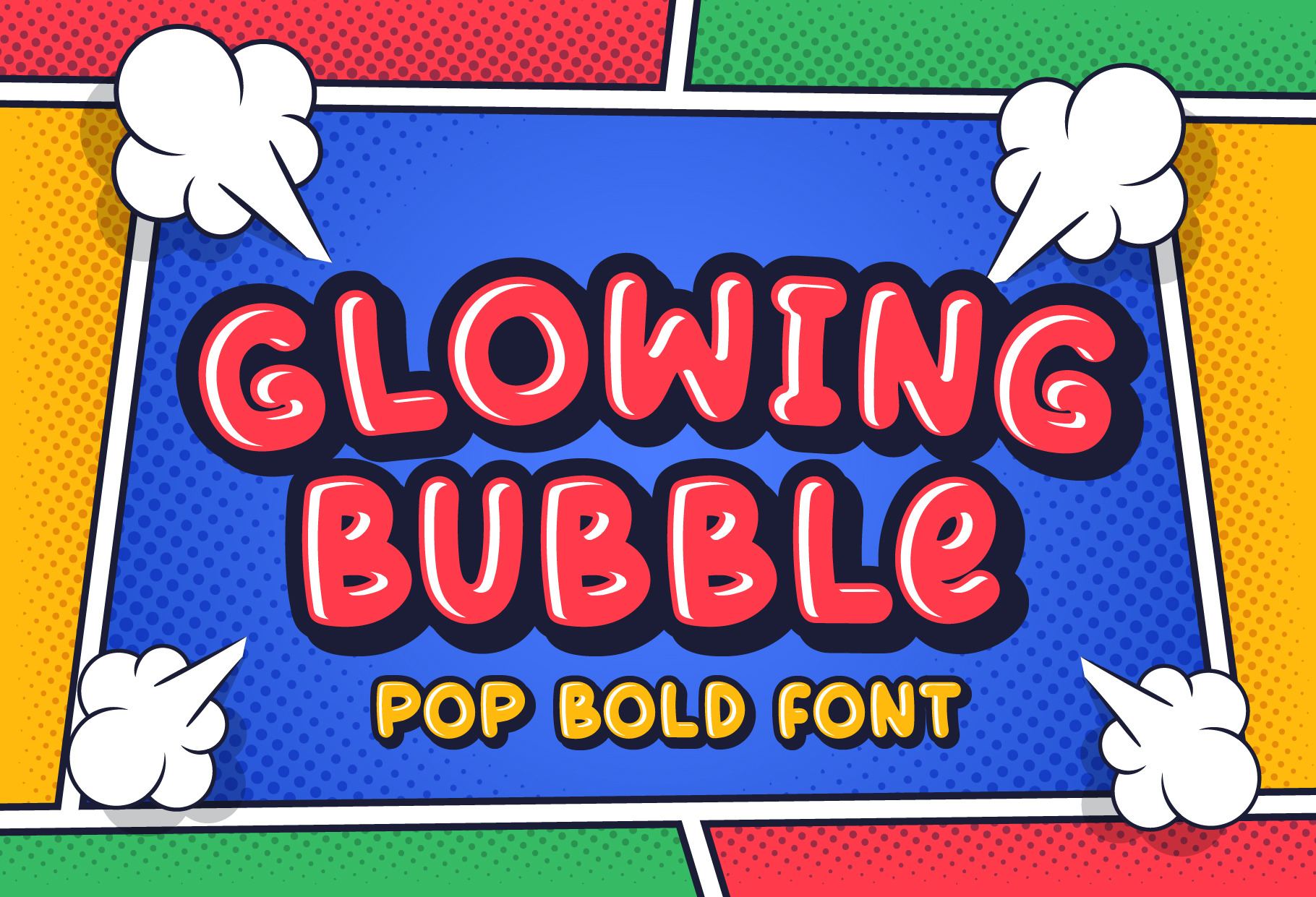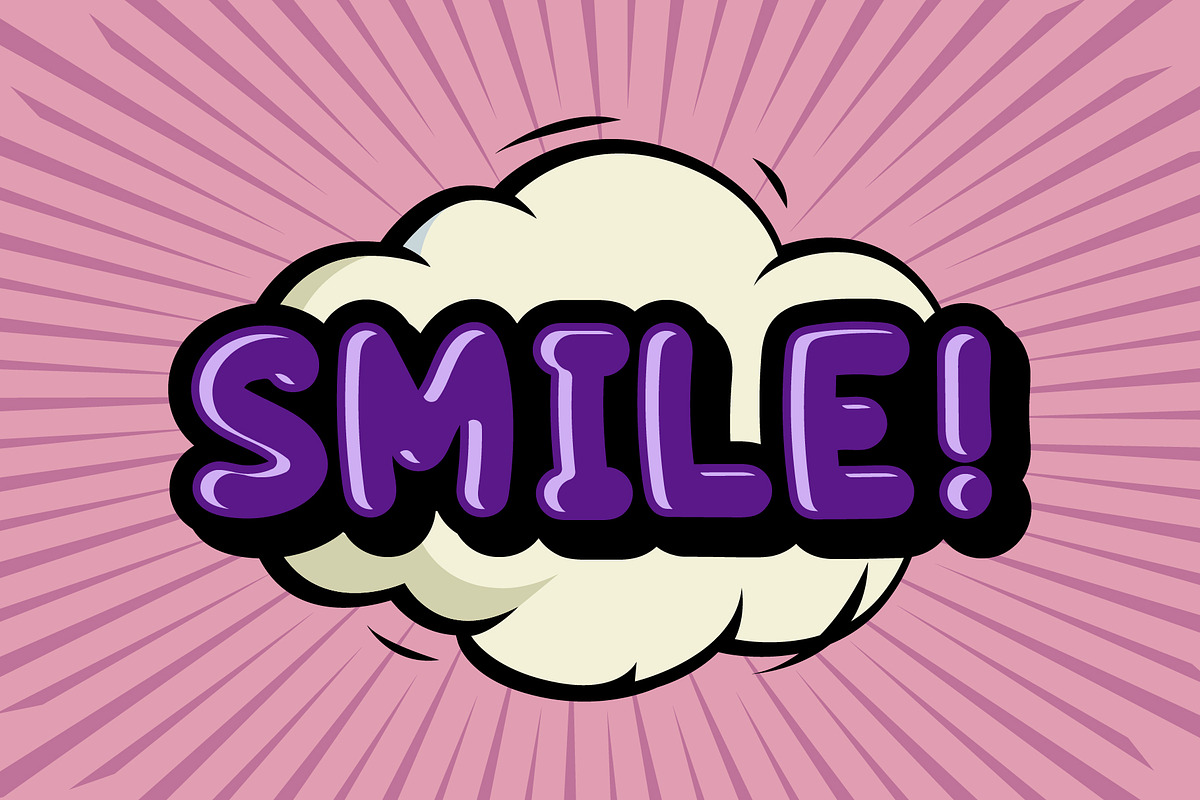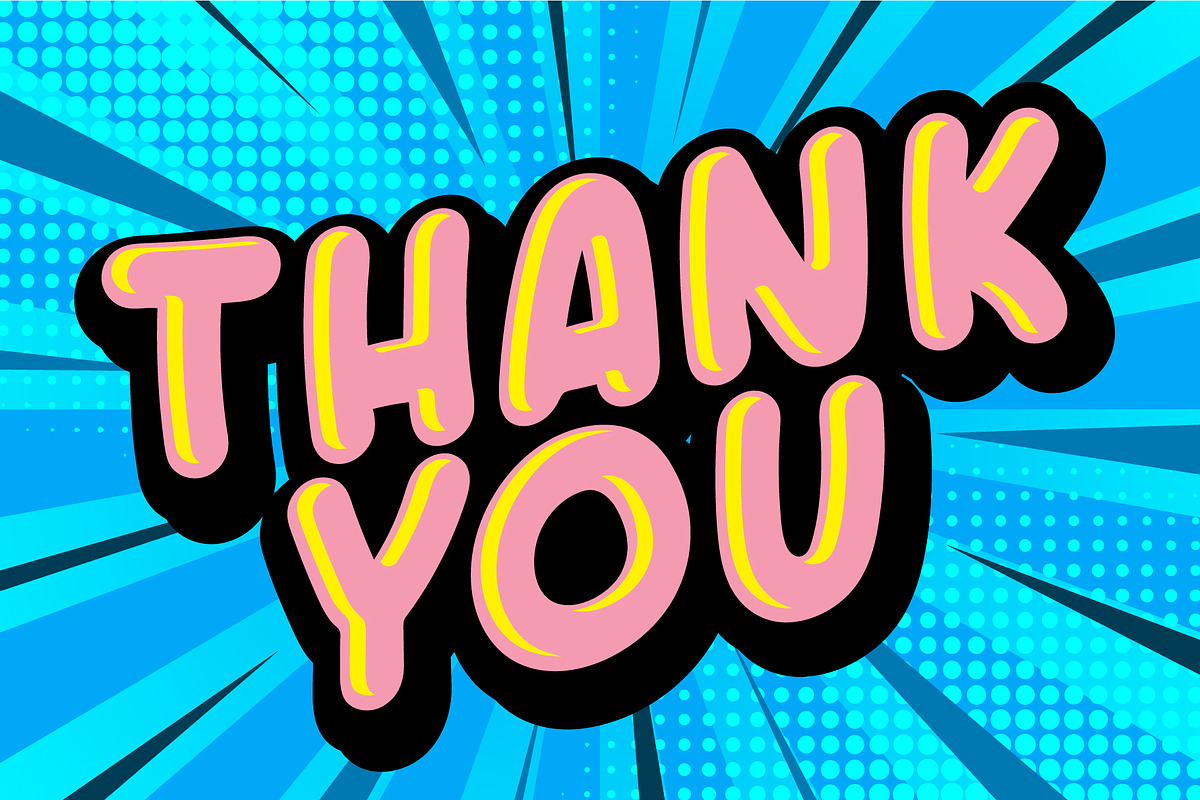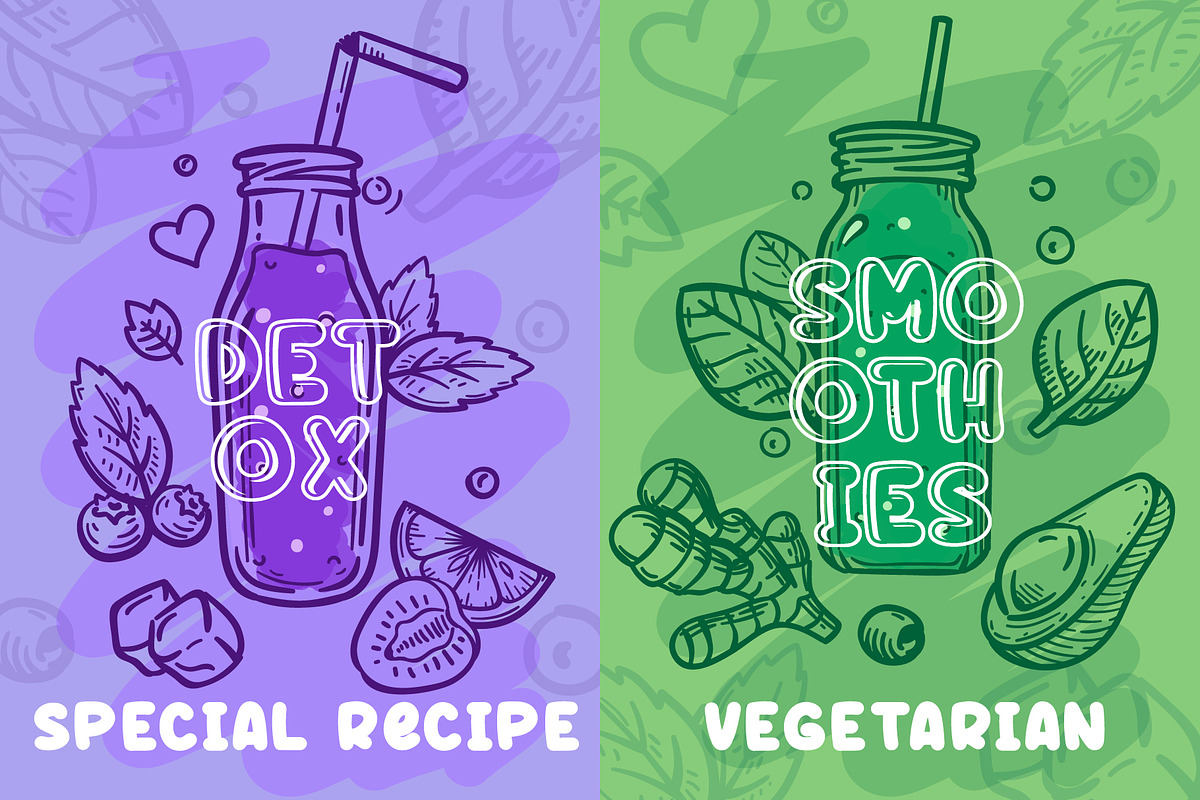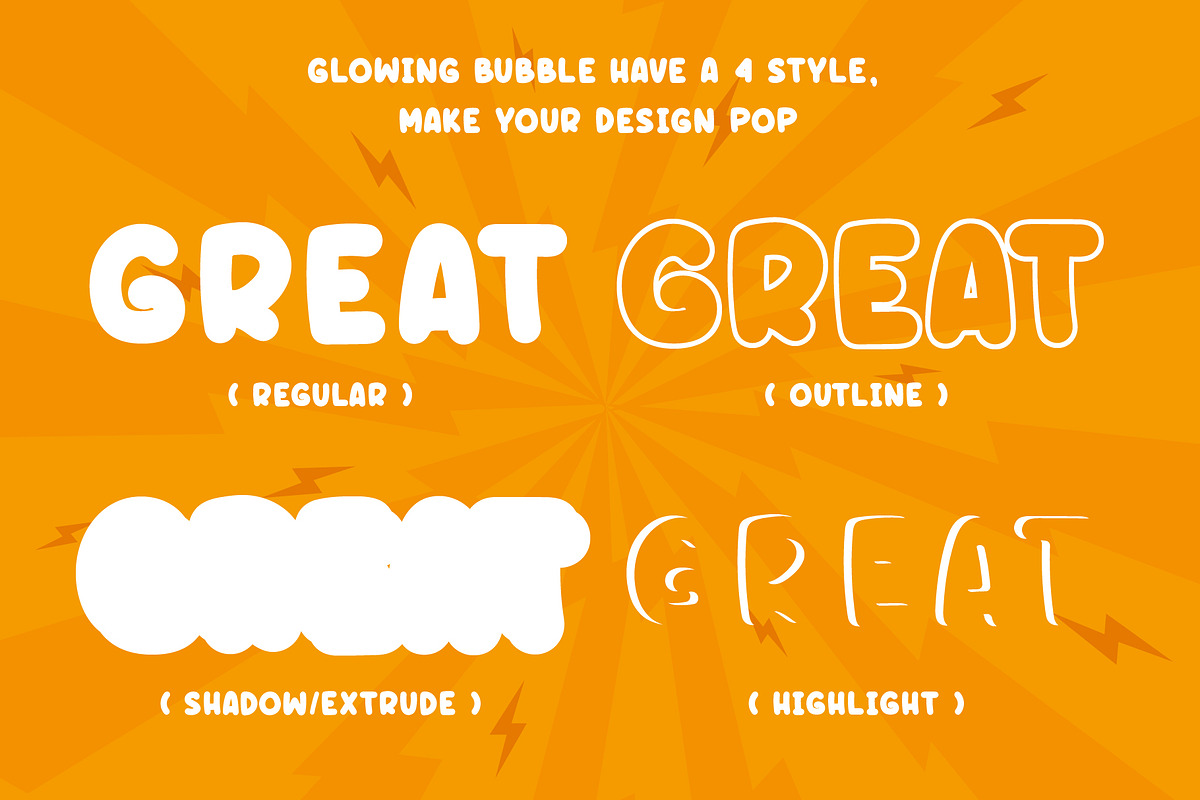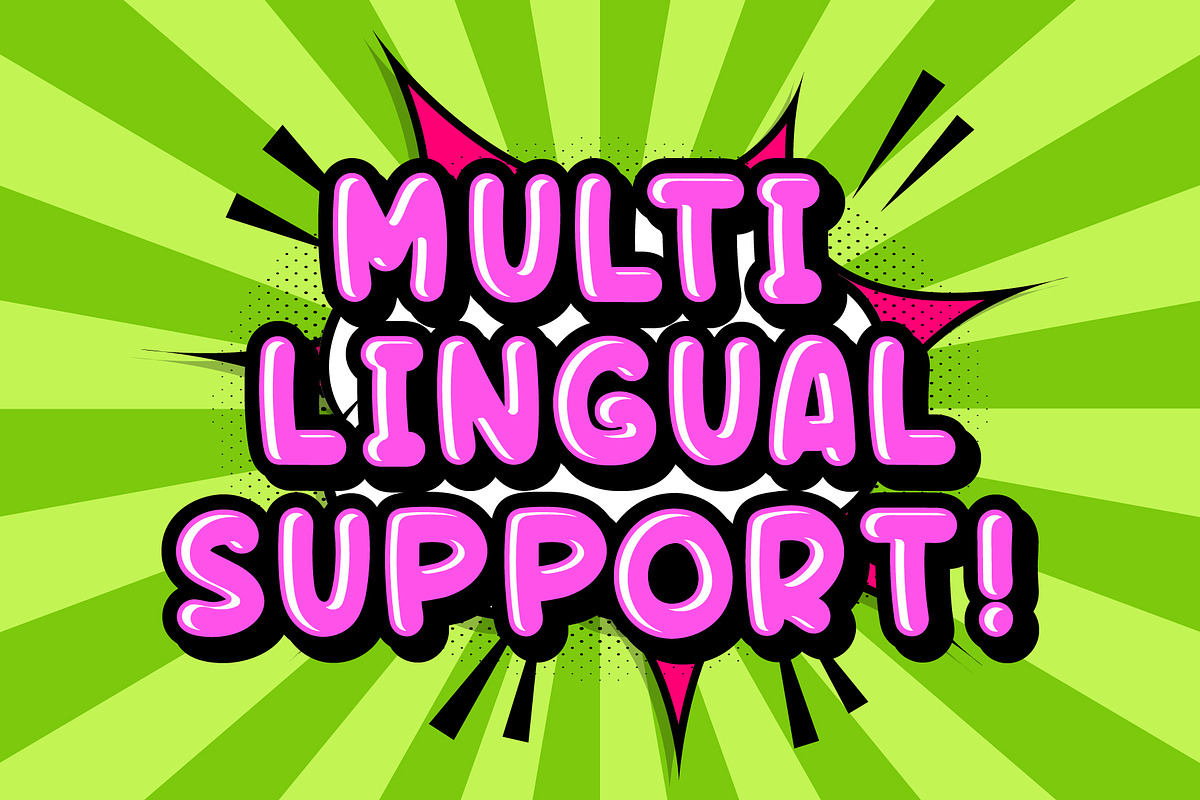
Glowing Bubble - Layered Fonts
Introducing the new fonts, Glowing Bubble. Glowing Bubble is a Pop, Bold and Retro fonts.
Good for your brand cute brand. as long as you can matching your layout.
Glowing bubble comes with 4 style :
- Outline
- Shadows/Extrude
- Hightlights
The font has include Multilingual Language.